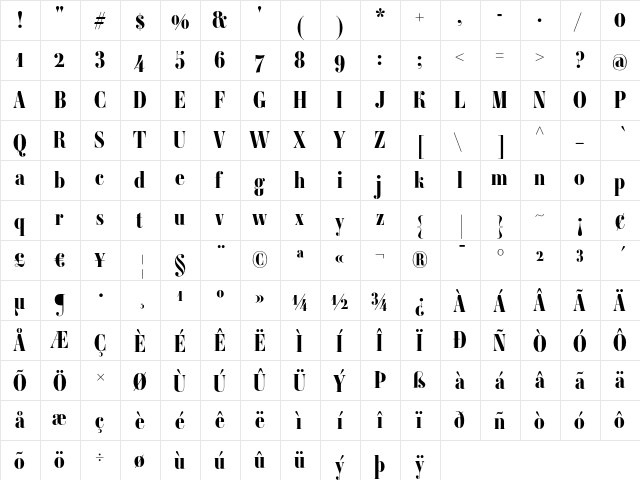
Ambroise Firmin Bold
Design Context for Ambroise Firmin Typeface
Ambroise Firmin is a composed and adaptable typeface that performs quietly and consistently across a wide range of design contexts. The heavy weight commands attention and anchors typographic hierarchies.